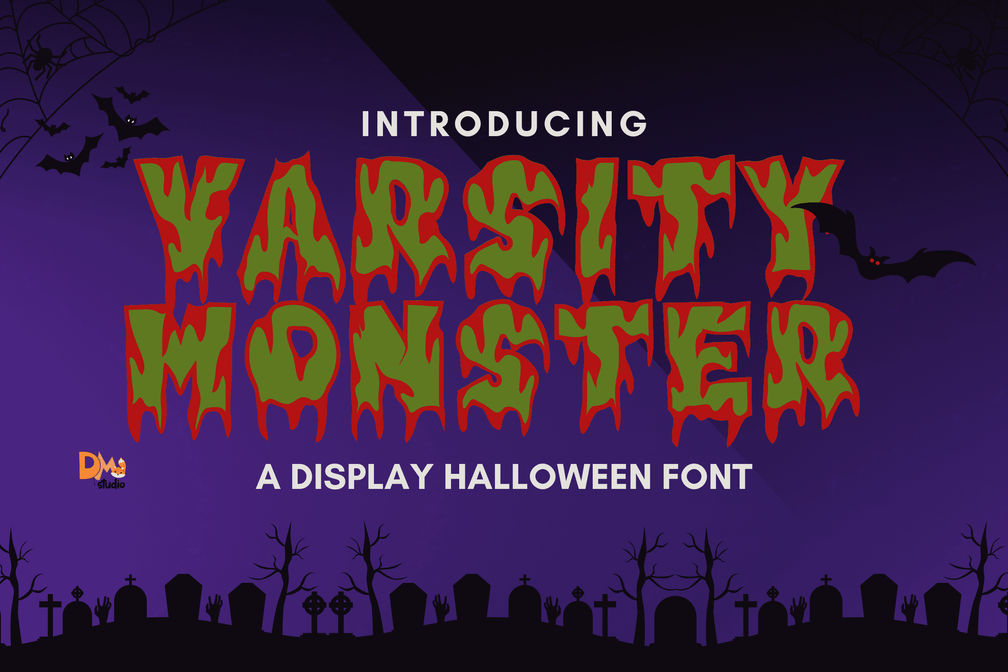
Varsity Monster
Varsity Monster – Bold & Spooky Display Font
Varsity Monster is a bold and eye-catching display font that blends classic varsity-style lettering with a spooky, monstrous twist. With its playful yet eerie design, this typeface is perfect for Halloween projects, horror-themed graphics, party invitations, apparel, posters, and any design that needs a bold, fun, and slightly scary touch.
• Bold Varsity-Inspired Design: Combines classic athletic-style lettering with a spooky monster effect.
• Perfect for Halloween & Horror Themes: Ideal for posters, party invites, spooky branding, and themed merchandise.
• Fun & Playful Aesthetic: A mix of boldness and creepiness to make your designs stand out.